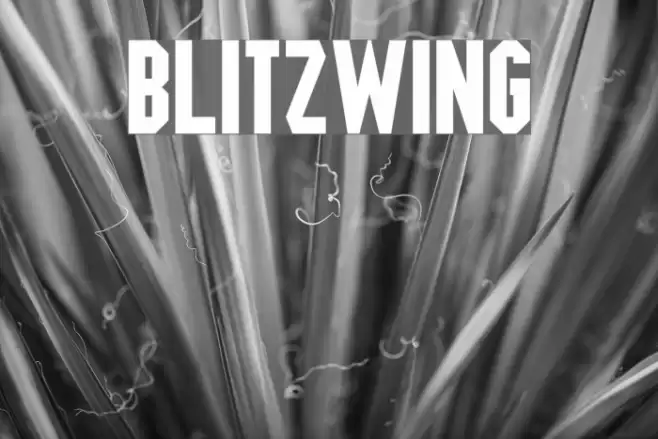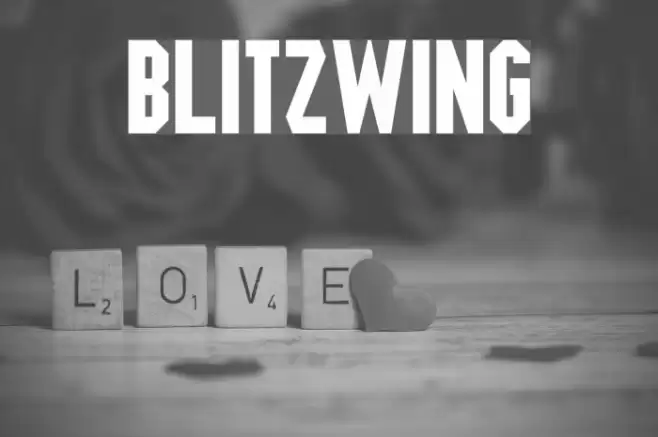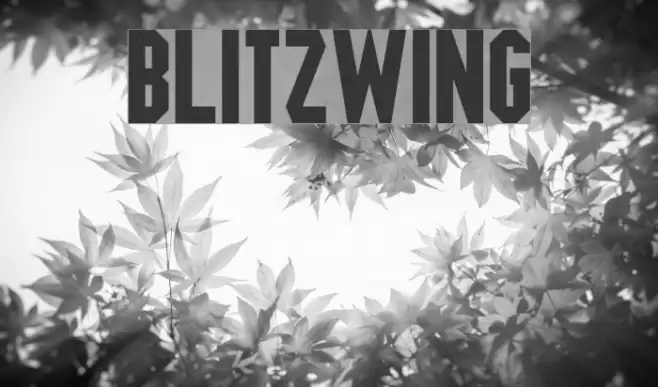
Blitzwing Font
Blitzwing Description
This font features a bold and impactful design with strong geometric shapes and sharp angles. The uppercase letters are particularly striking, with a uniform height and width that create a sense of stability and power. The lowercase letters maintain the same boldness, ensuring consistency across all text. Numbers and special characters are designed to match the overall aesthetic, making them easily readable while maintaining the font's distinctive style. The font's thick strokes and solid structure make it ideal for attention-grabbing headlines and titles.
A bold, geometric font with strong, sharp angles and uniform structure from Uncategorized fonts.